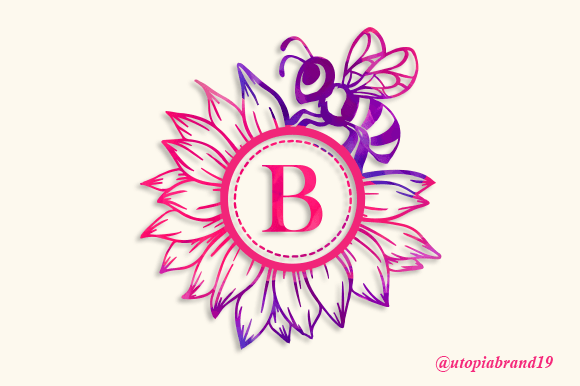
Introducing the Sunflower Bee Monogram Font: Elevate Your Designs with Elegance
The Sunflower Bee Monogram Font is an exquisite addition to the world of typography, offering an elegant and decorative style that is sure to capture hearts. This beautiful font is perfect for those seeking to add a touch of sophistication and charm to their designs. With its lovely ornaments and authentic feel, the Sunflower Bee Monogram Font is an ideal choice for creating stunning wedding invitations, gorgeous stationery art, eye-catching social media posts, and adorable greeting cards.
What Makes Sunflower Bee Monogram Font Special?
The Sunflower Bee Monogram Font stands out from the crowd with its unique blend of elegance and playfulness. The font features intricate ornaments that add a touch of whimsy and romance, making it perfect for special occasions. Whether you’re designing wedding invitations, party decorations, or social media graphics, this font is sure to make your creations shine.
One of the key features that make the Sunflower Bee Monogram Font so special is its versatility. The font comes in a range of styles and can be used for a variety of design projects, from formal wedding invitations to casual social media posts. This versatility makes it an excellent addition to any designer’s toolkit.
The Perfect Font for Wedding Invitations and Stationery
When it comes to wedding invitations and stationery, the font you choose can make all the difference. The Sunflower Bee Monogram Font is an excellent choice for couples looking to add a touch of elegance and sophistication to their wedding stationery. The font’s intricate ornaments and classic style make it perfect for creating beautiful wedding invitations, save-the-date cards, and thank-you notes.
Here are just a few ways you can use the Sunflower Bee Monogram Font to create stunning wedding stationery:
- Create beautiful wedding invitations that set the tone for your special day
- Design elegant save-the-date cards that will get your guests excited
- Make stunning thank-you notes that will show your appreciation to friends and family
- Personalize your wedding stationery with custom monograms and ornaments
Beyond Wedding Invitations: Using Sunflower Bee Monogram Font for Social Media and More
While the Sunflower Bee Monogram Font is perfect for wedding invitations and stationery, its uses don’t stop there. This versatile font can be used for a wide range of design projects, including social media graphics, greeting cards, and more.
Here are just a few ideas for using the Sunflower Bee Monogram Font beyond wedding invitations:
- Create eye-catching social media posts that will grab your followers’ attention
- Design adorable greeting cards for birthdays, holidays, and special occasions
- Make beautiful stationery art that will add a touch of elegance to your office or home
- Personalize your gifts with custom monograms and ornaments
Why Choose Sunflower Bee Monogram Font?
With so many fonts to choose from, why should you choose the Sunflower Bee Monogram Font? Here are just a few reasons why this font stands out from the crowd:
- Elegant and sophisticated: The Sunflower Bee Monogram Font features a classic style that is both elegant and sophisticated.
- Versatile: This font can be used for a wide range of design projects, from wedding invitations to social media graphics.
- Unique ornaments: The font’s intricate ornaments add a touch of whimsy and romance to any design.
- Easy to use: The Sunflower Bee Monogram Font is easy to install and use, even for those with limited design experience.
Tips for Using Sunflower Bee Monogram Font
To get the most out of the Sunflower Bee Monogram Font, here are a few tips to keep in mind:
- Experiment with different sizes: The font looks great in a range of sizes, from small and delicate to large and bold.
- Mix and match with other fonts: The Sunflower Bee Monogram Font pairs well with a range of other fonts, so don’t be afraid to experiment.
- Add your own touch: Use the font’s ornaments and monograms to add a personal touch to your designs.
- Use it for special occasions: The Sunflower Bee Monogram Font is perfect for special occasions, such as weddings, anniversaries, and holidays.
The Sunflower Bee Monogram Font is a beautiful and versatile font that is perfect for a wide range of design projects. With its elegant style, intricate ornaments, and authentic feel, this font is sure to capture hearts. Whether you’re designing wedding invitations, social media graphics, or greeting cards, the Sunflower Bee Monogram Font is an excellent choice. So why wait? Download the Sunflower Bee Monogram Font today and start creating stunning designs that will leave a lasting impression.